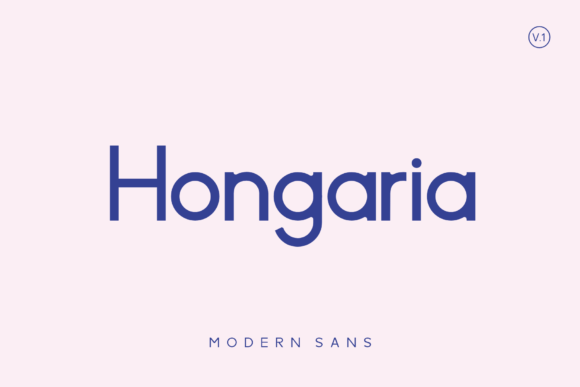
Journey into the realm of typography with Hongaria, a transcendent sans-serif font crafted by the visionary minds at Nest Studio. This modern masterpiece is not merely a collection of letters; it's an artistic expression, a symphony of curves and angles that harmoniously blend to create a visual masterpiece.
Immerse yourself in the elegance of Hongaria's upright uppercase and lowercase letters, carefully designed with symmetrical and geometric precision. Witness the soft, modern aura that emanates from every character, beckoning you to explore the endless possibilities that await.
With Hongaria as your creative companion, transform your movie posters into cinematic masterpieces that captivate audiences. Its captivating charm will elevate your designs, making them shine brighter than the stars on the silver screen.
Unleash the power of Hongaria in the realm of web design, crafting modern websites that exude sophistication and innovation. Let the font's inherent grace guide you as you create user interfaces that seamlessly blend form and function, leaving a lasting impression on every visitor.
Step into the world of print and let Hongaria ignite your creativity. Design flyers that demand attention, capturing the essence of your message with every stroke. Its versatility extends to logo designs, where it breathes life into your brand identity, creating a visual symbol that resonates with your audience.
Hongaria is more than just a font; it's an invitation to embark on a creative odyssey. Let its timeless beauty inspire you, captivate your audience, and leave an indelible mark on the world of design. Embrace Hongaria, and together, create a legacy of visual excellence that will stand the test of time.